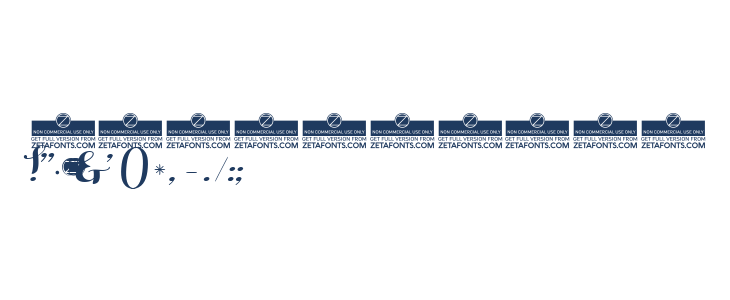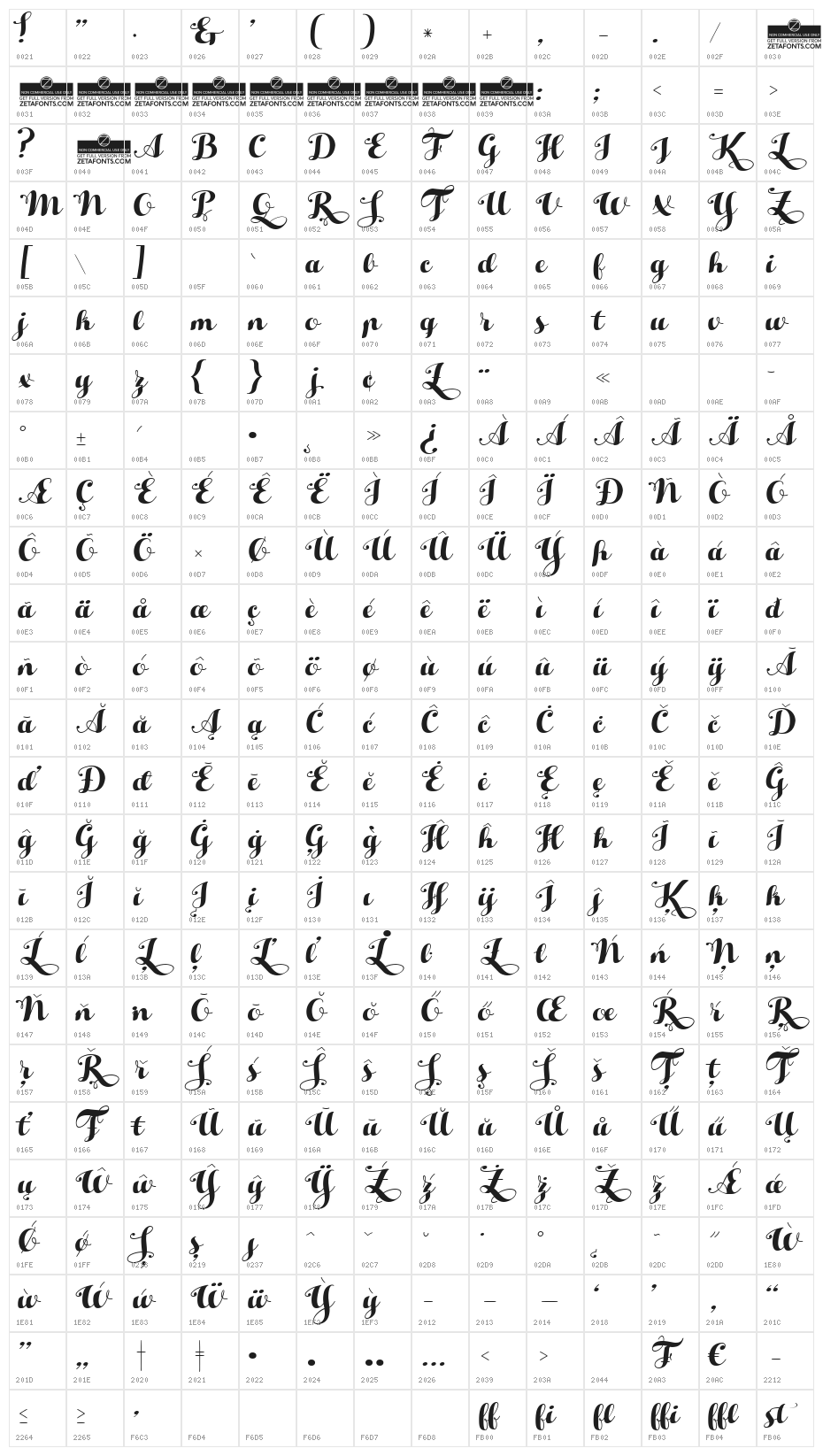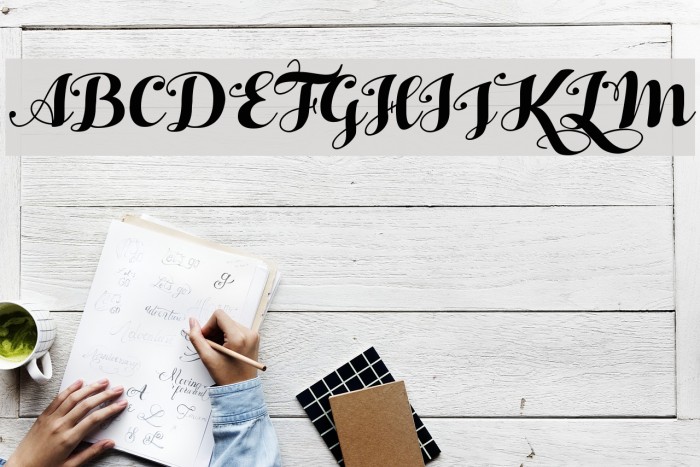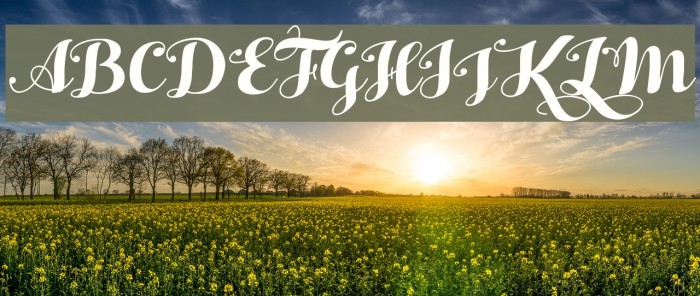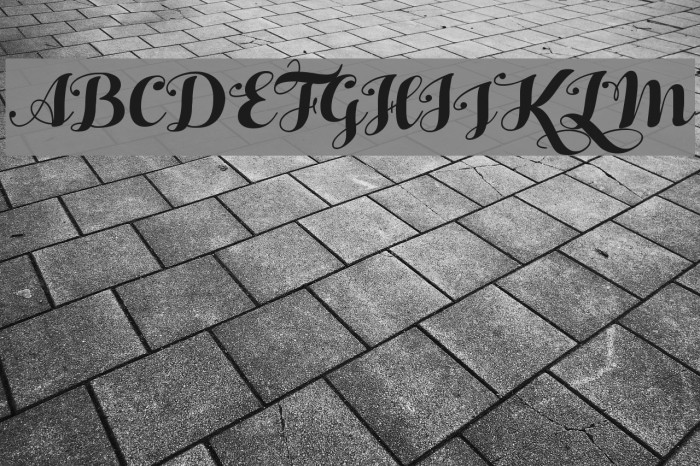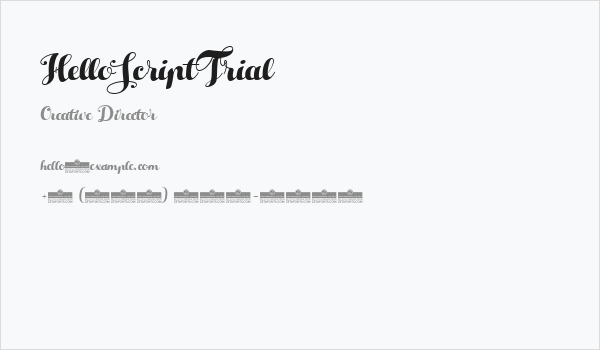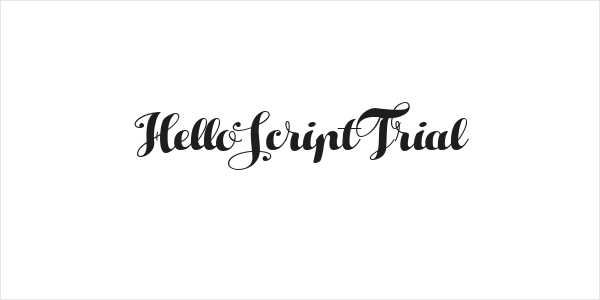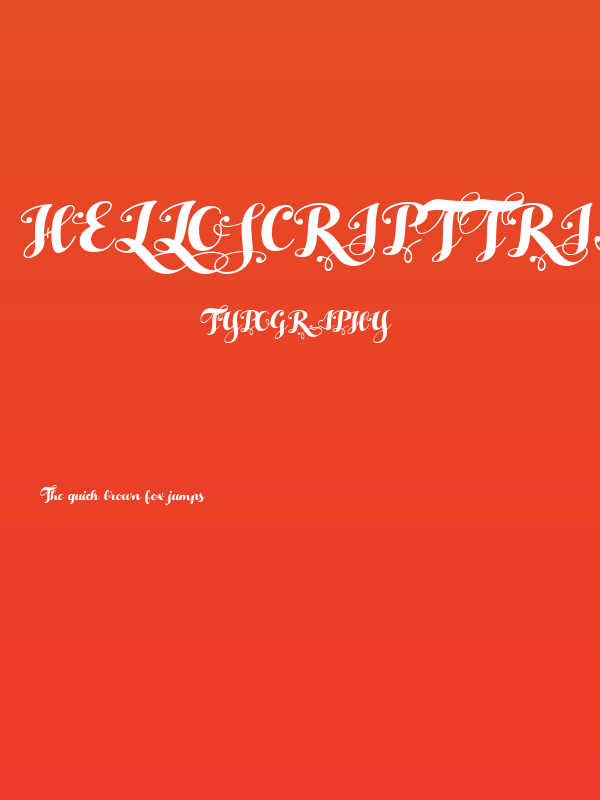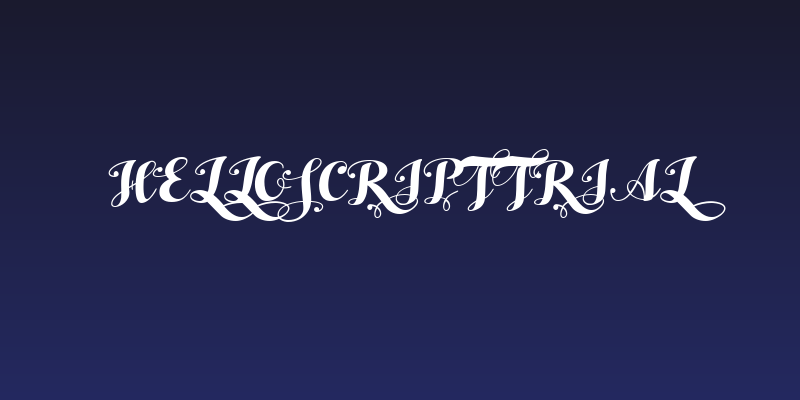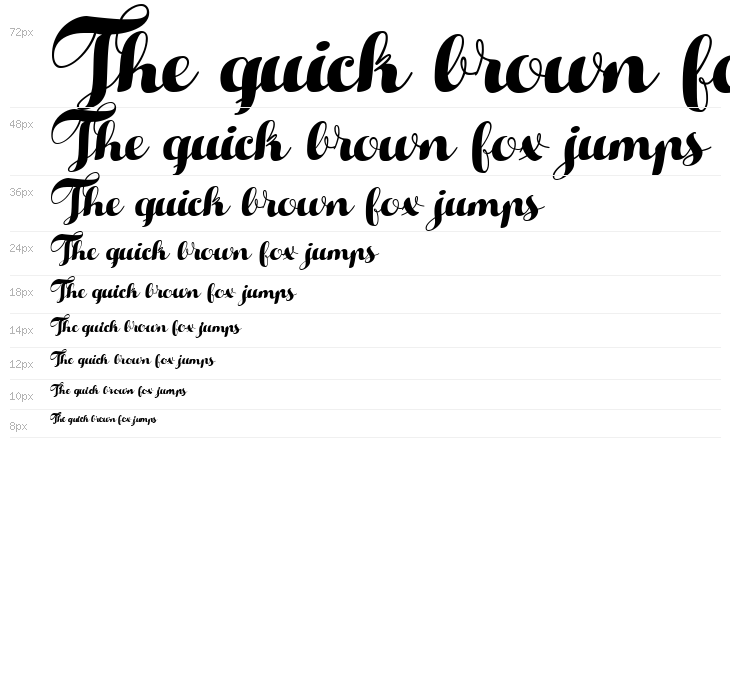
HelloScriptTrial Font
HelloScriptTrial Description
This font features an elegant and flowing script style, characterized by its ornate and decorative flourishes. The uppercase letters are particularly elaborate, with intricate swirls and loops that give a sense of sophistication and grace. The lowercase letters maintain a consistent flow, with smooth curves and a slightly slanted orientation, enhancing the script's fluidity. The numerals and special characters are designed to complement the overall aesthetic, maintaining the same level of detail and elegance. This font is ideal for projects that require a touch of luxury and refinement, such as wedding invitations, high-end branding, and decorative headings.
| Proposed Projects | Wedding invitations, luxury branding, decorative headings, elegant signage. |